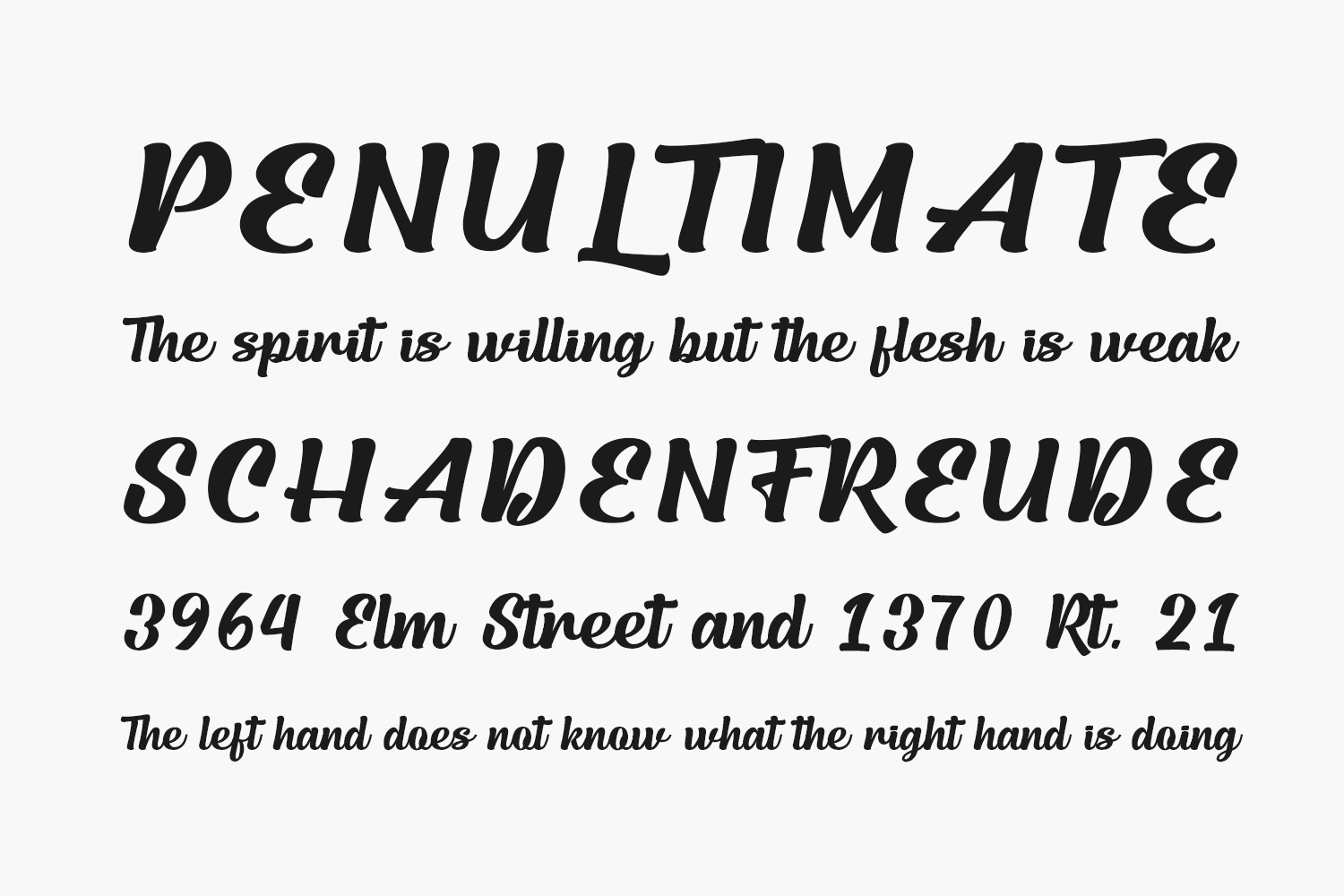
Autentica Free Font is a bold and striking handwritten typeface that exudes confidence and personality. Its bold strokes and dynamic loops create an emotional impact that captures the energy and spirit of individuality. With its unique and authentic character, this font is perfect for making a bold statement and standing out from the crowd.